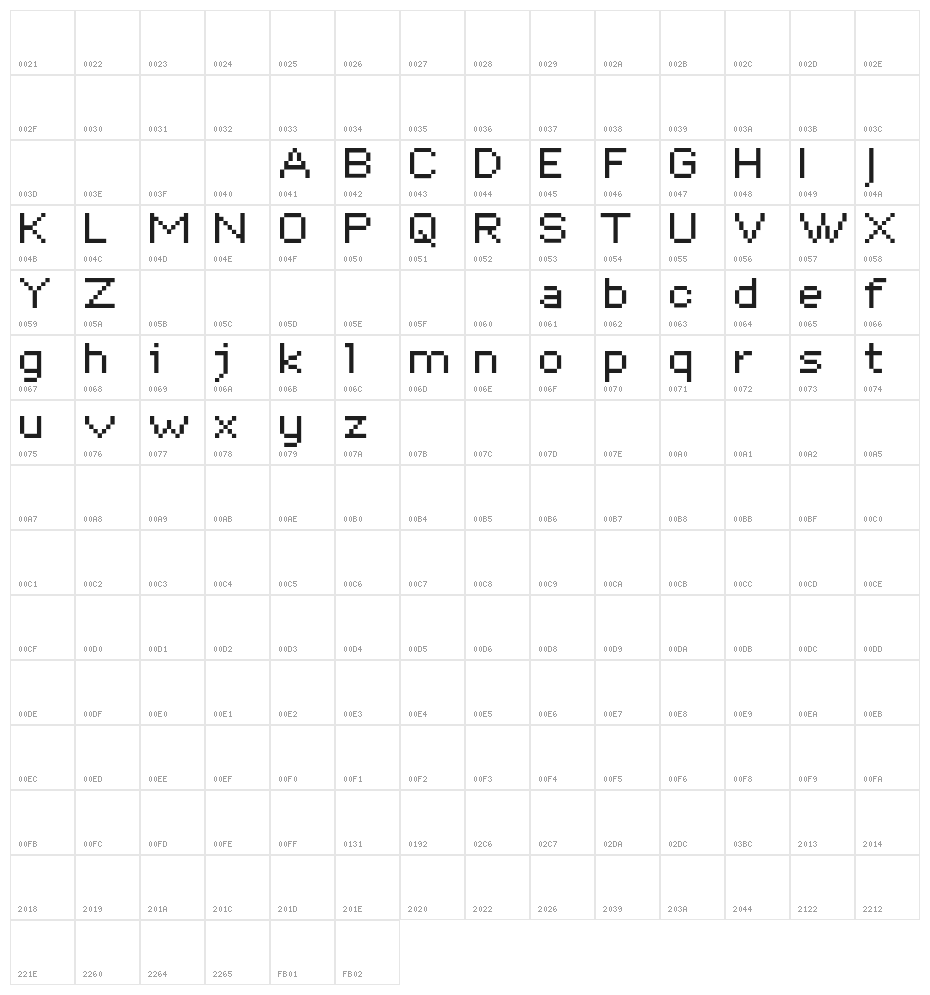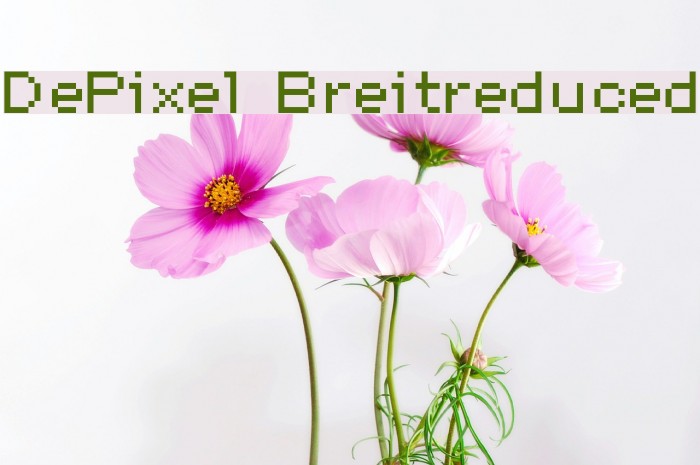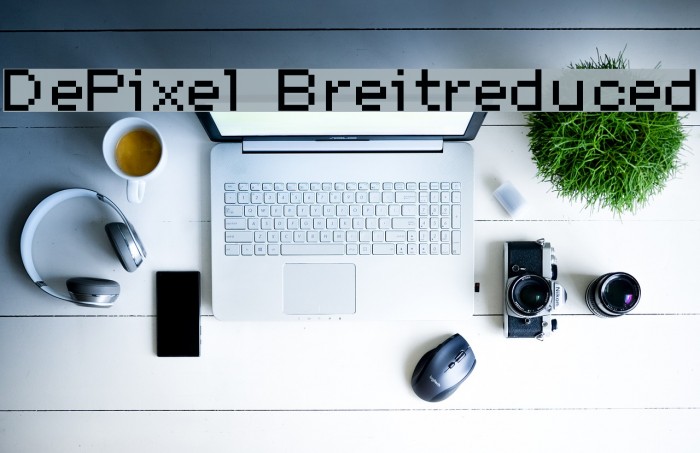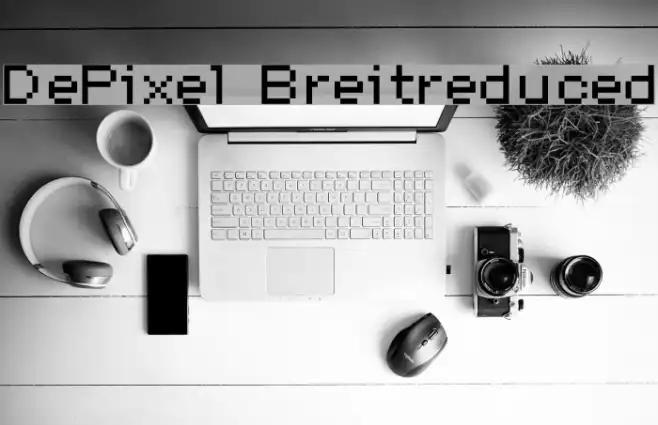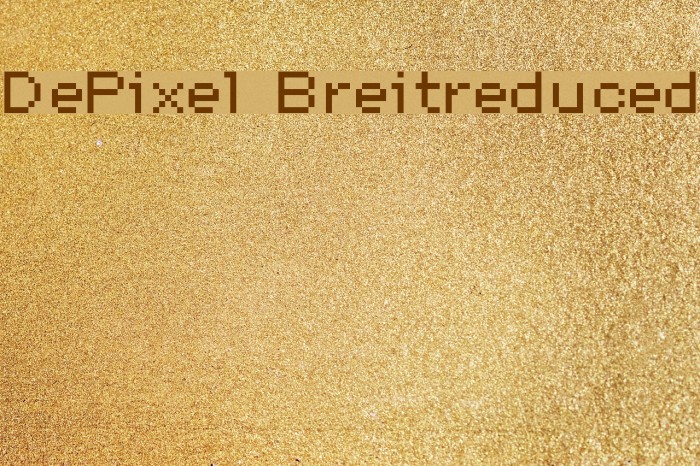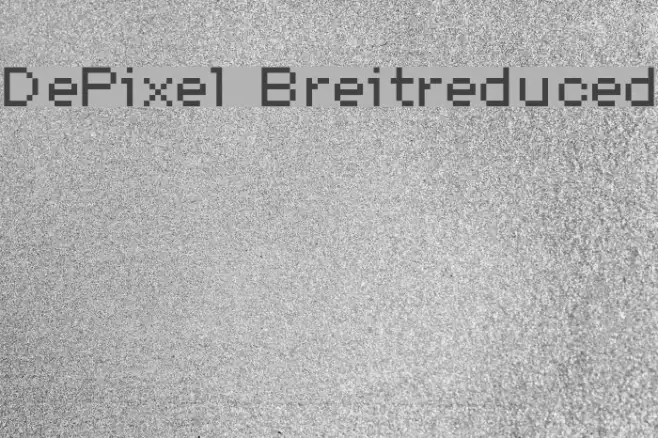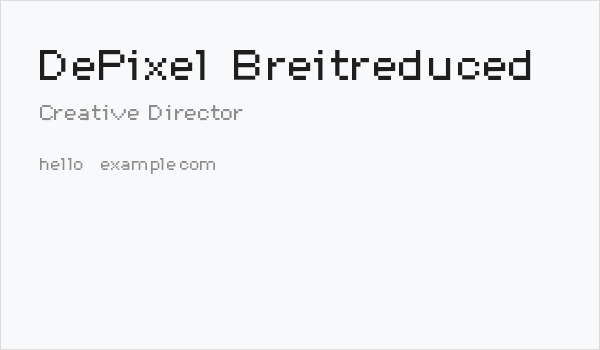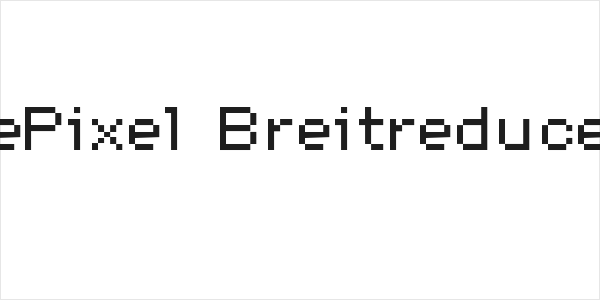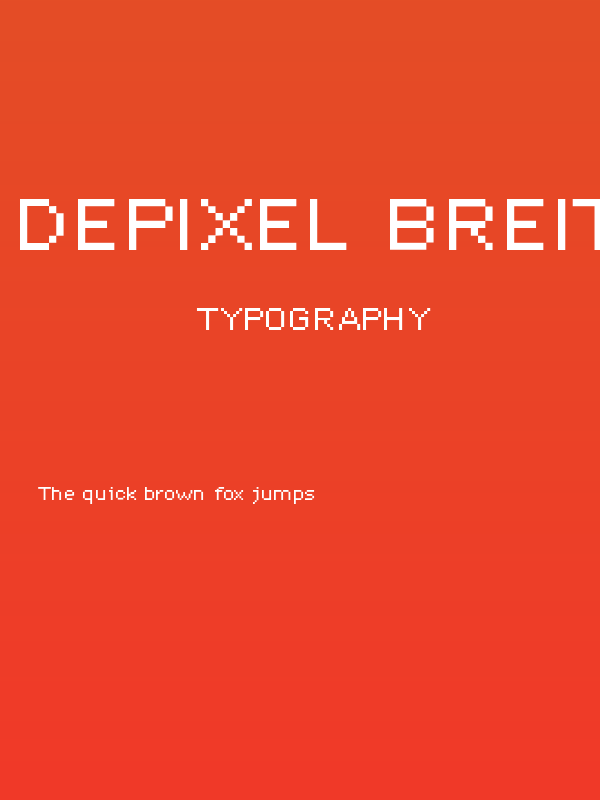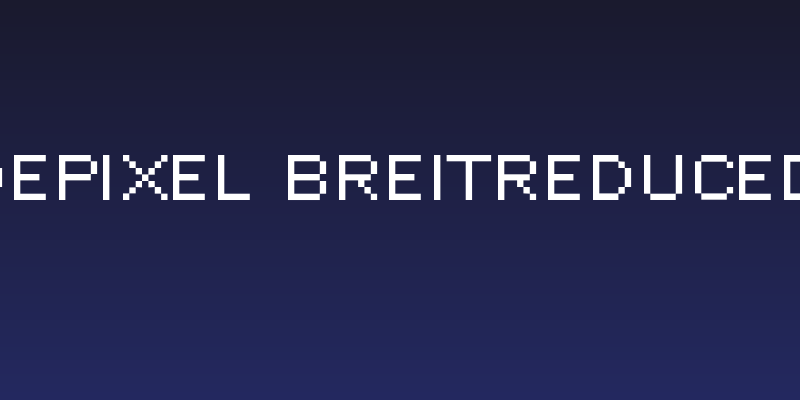
DePixel-Breitreduced Font
DePixel-Breitreduced Description
This font features a pixelated, blocky design reminiscent of early digital displays and retro video games. Each character is constructed with a grid-like precision, giving it a distinctly digital aesthetic. The uniformity in stroke width across all characters contributes to its cohesive appearance. The uppercase and lowercase letters maintain a consistent height, enhancing readability while preserving the nostalgic feel. The font's geometric form and sharp edges make it ideal for projects that aim to evoke a sense of nostalgia or a retro-futuristic vibe. Its simplicity and clarity ensure that it remains legible even at smaller sizes, making it versatile for various digital applications.
| Use Case | Headlines, Logos, Digital displays |
| Proposed Projects | Ideal for retro video game designs, digital art projects, tech-themed posters, and nostalgic branding. |